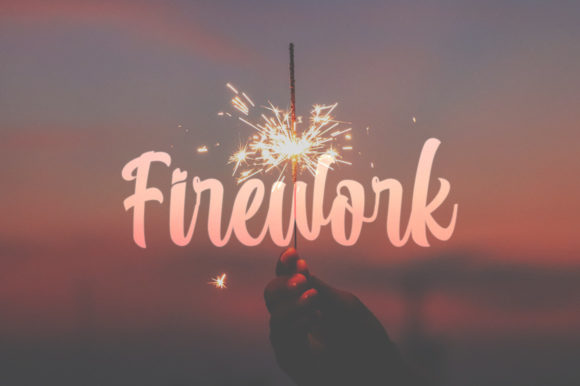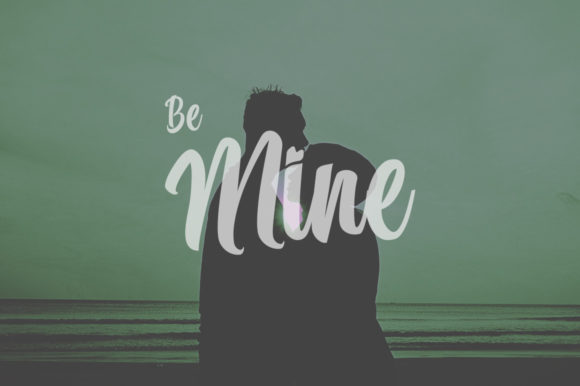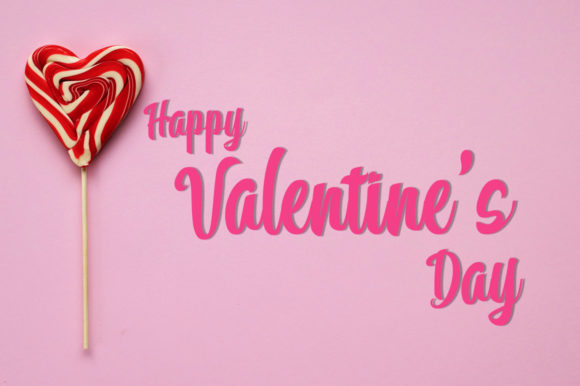
Hareudang Font
About Hareudang Font
Hareudang feels equally charming and elegant. It looks gorgeous on wedding invitations, thank you cards, quotes, greeting cards, logos, business cards and every other design which needs a customized touch.